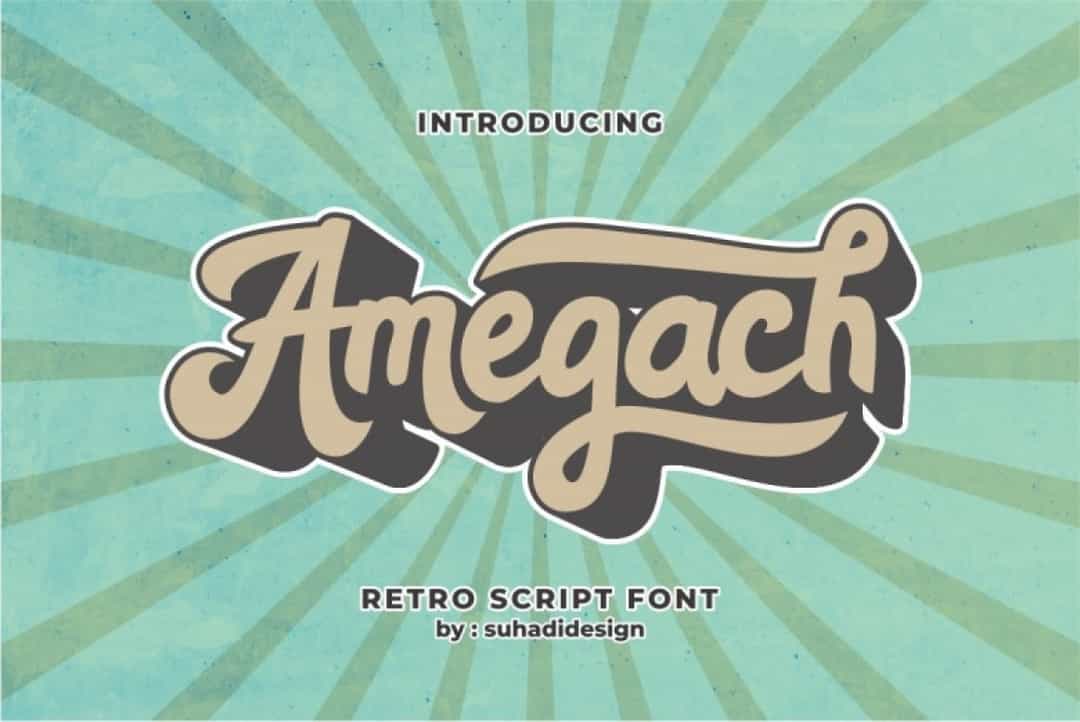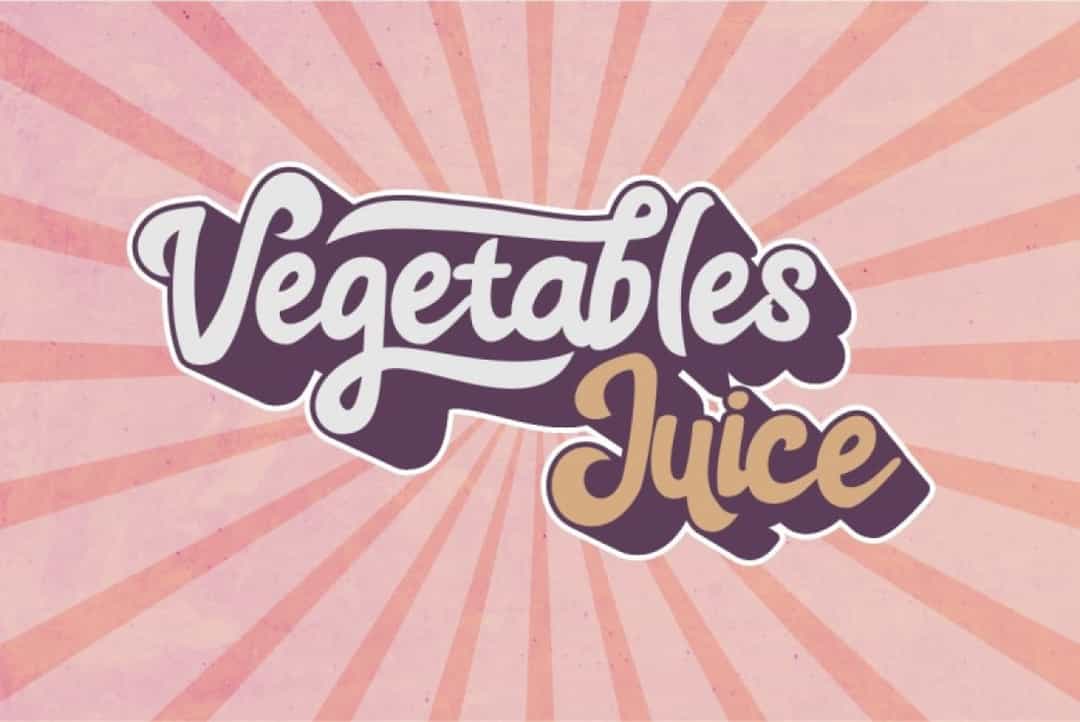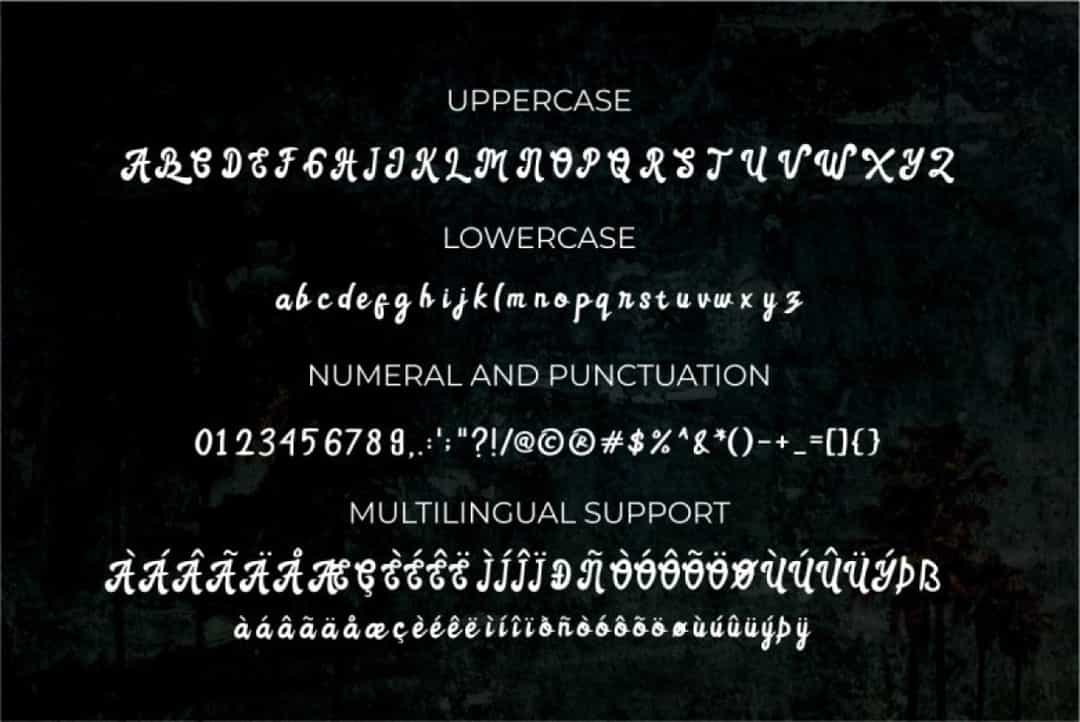
Amegach font is an elegant and well-loved retro script font designed with contemporary style in mind and hopes to gain acceptance in the marketplace. This font offers elegant lines that are simple yet sophisticated enough for reading purposes, while being attractive and attractive at once – plus being easy to use.